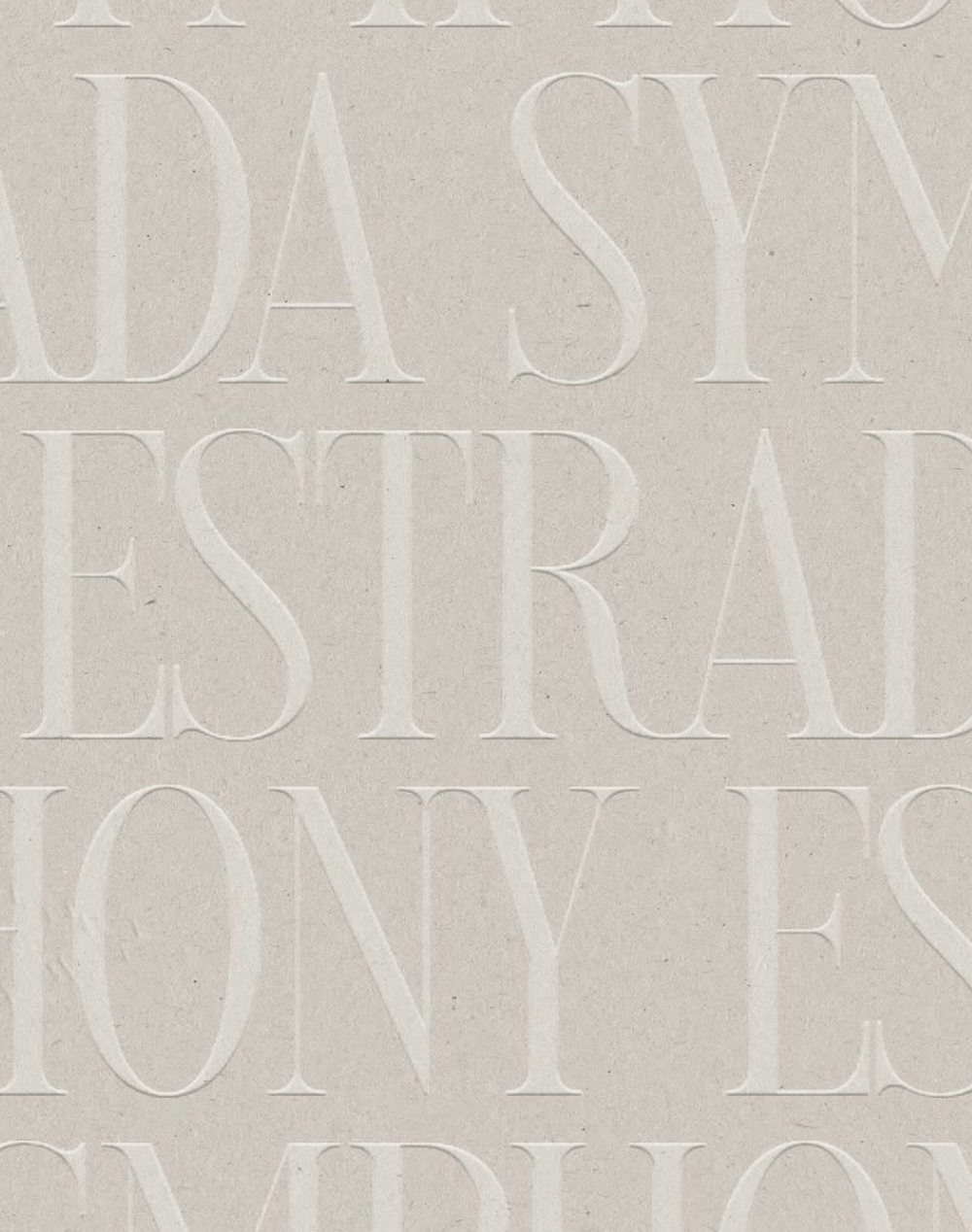
Serif Font - Fashion Style (Symphony Estrada)
I am curious about finding this font I found online for the company Symphony Estrada by Harper Maven.
I found the clients website, but it does not seem to use the same font that is in this post. https://www.instagram.com/p/C6tgCACrApg/?img_index=1
Maybe it was proposed by the designer but not used in their logo.
However, I really like the shape of the R. I found a similar font by Jen Wagner called Carefree but it's not the same A and R.
Here is the reference image attached.